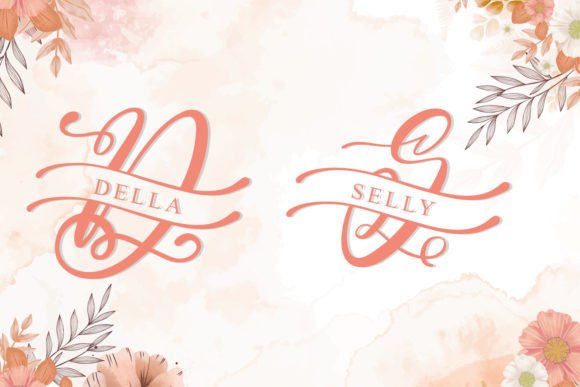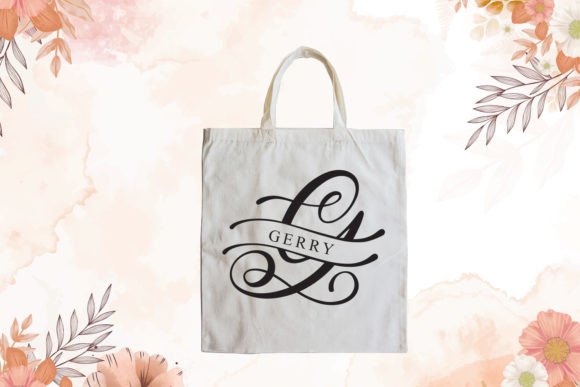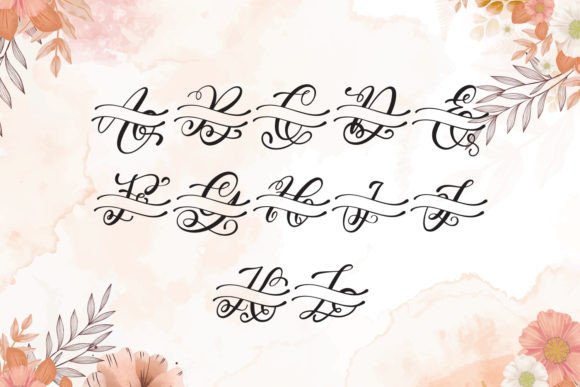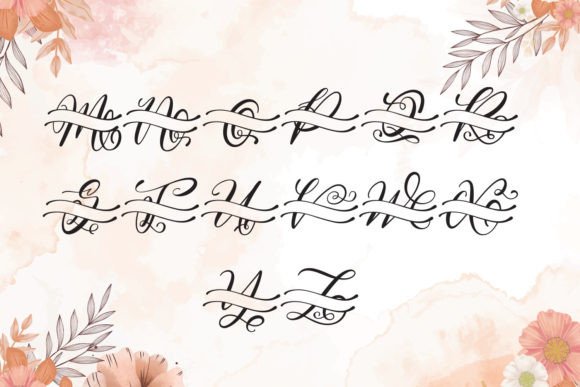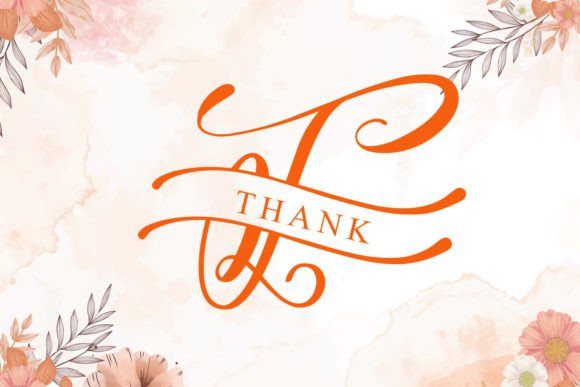
Cella Monogram Font: Elevate Your Designs with Elegance and Romance
Cella Monogram Font is a beautiful, dainty, and unique decorative font that can add a touch of romance and sophistication to your designs. This lovely-looking font is perfect for crafters, designers, and anyone looking to create stunning visual content. In this article, we’ll explore the features and benefits of Cella Monogram Font and how you can use it to elevate your designs.
What is Cella Monogram Font?
Cella Monogram Font is a decorative font designed to add a personal touch to your designs. Its intricate and delicate style makes it perfect for creating monograms, wedding invitations, love letters, and other romantic designs. The font’s unique and elegant style will make your designs stand out and leave a lasting impression.
Features of Cella Monogram Font
- Dainty and Unique: Cella Monogram Font features a one-of-a-kind design that’s both dainty and elegant.
- Romantic and Lovely: The font’s romantic and lovely style makes it perfect for wedding invitations, love letters, and other designs that require a touch of elegance.
- Versatile: Cella Monogram Font can be used for a variety of design projects, from paper crafting to digital designs.
Benefits of Using Cella Monogram Font
Using Cella Monogram Font can bring numerous benefits to your designs. Here are a few:
- Adds a Personal Touch: The font’s unique and elegant style allows you to add a personal touch to your designs, making them more special and meaningful.
- Creates a Lasting Impression: Cella Monogram Font’s romantic and lovely style will leave a lasting impression on your audience, making your designs more memorable.
- Perfect for Wedding and Love-Related Designs: The font’s elegant and romantic style makes it perfect for wedding invitations, love letters, and other love-related designs.
- Enhances Your Brand: Using Cella Monogram Font can enhance your brand’s image and reputation, especially if you’re a designer or business owner looking to create a unique and elegant visual identity.
Design Ideas Using Cella Monogram Font
Cella Monogram Font can be used for a variety of design projects. Here are a few ideas to get you started:
- Wedding Invitations: Use Cella Monogram Font to create beautiful and elegant wedding invitations that will set the tone for your special day.
- Love Letters: Add a personal touch to your love letters with Cella Monogram Font, making them more romantic and special.
- Digital Designs: Use Cella Monogram Font to create stunning digital designs, such as social media graphics, blog headers, and more.
- Paper Crafting: Use Cella Monogram Font to create beautiful paper crafts, such as cards, scrapbook pages, and journal entries.
| Font Name | Cella Monogram Font |
| Author | niyos.studio |
Cella Monogram Font is a beautiful and unique decorative font that can add a touch of elegance and romance to your designs. Its dainty and lovely style makes it perfect for wedding invitations, love letters, and other designs that require a personal touch. With its ease of use and versatility, Cella Monogram Font is a must-have for designers and crafters looking to elevate their designs.